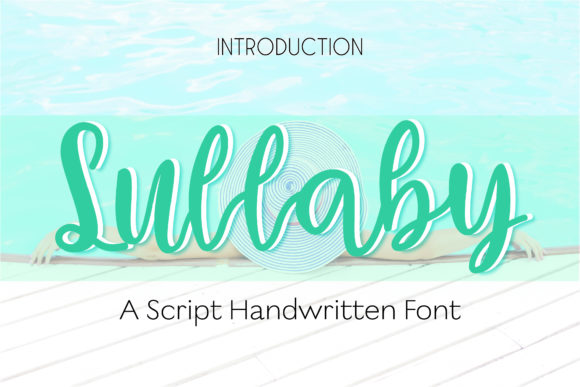
Prepare to be captivated by Lullaby, a whimsical script font that will enchant your designs with its effortless grace and relaxed demeanor. Its charming curves and elegant flow evoke a serene atmosphere, inviting you to escape into a realm of creativity.
Whether you're crafting enchanting invitations, personalizing heartfelt notes, or designing an app that exudes warmth and charm, Lullaby is your perfect companion. With its ability to elevate any creation, this font will transform your projects into masterpieces that resonate with your audience.
Immerse yourself in the world of Lullaby and discover the boundless possibilities it holds. Its versatility knows no limits, allowing you to express your creativity in countless ways. From enchanting logos to captivating social media posts, Lullaby will add a touch of magic to every project you embark on.
Don't just take our word for it; renowned designers have hailed Lullaby as one of the best fonts for app design. Its ability to convey emotions and create a lasting impression makes it the ideal choice for captivating your users.
Join the chorus of satisfied designers who have embraced Lullaby's charm. Experience the joy of creating designs that captivate, inspire, and leave an unforgettable mark on your audience. Embrace the whimsical spirit of Lullaby and let your creativity soar!